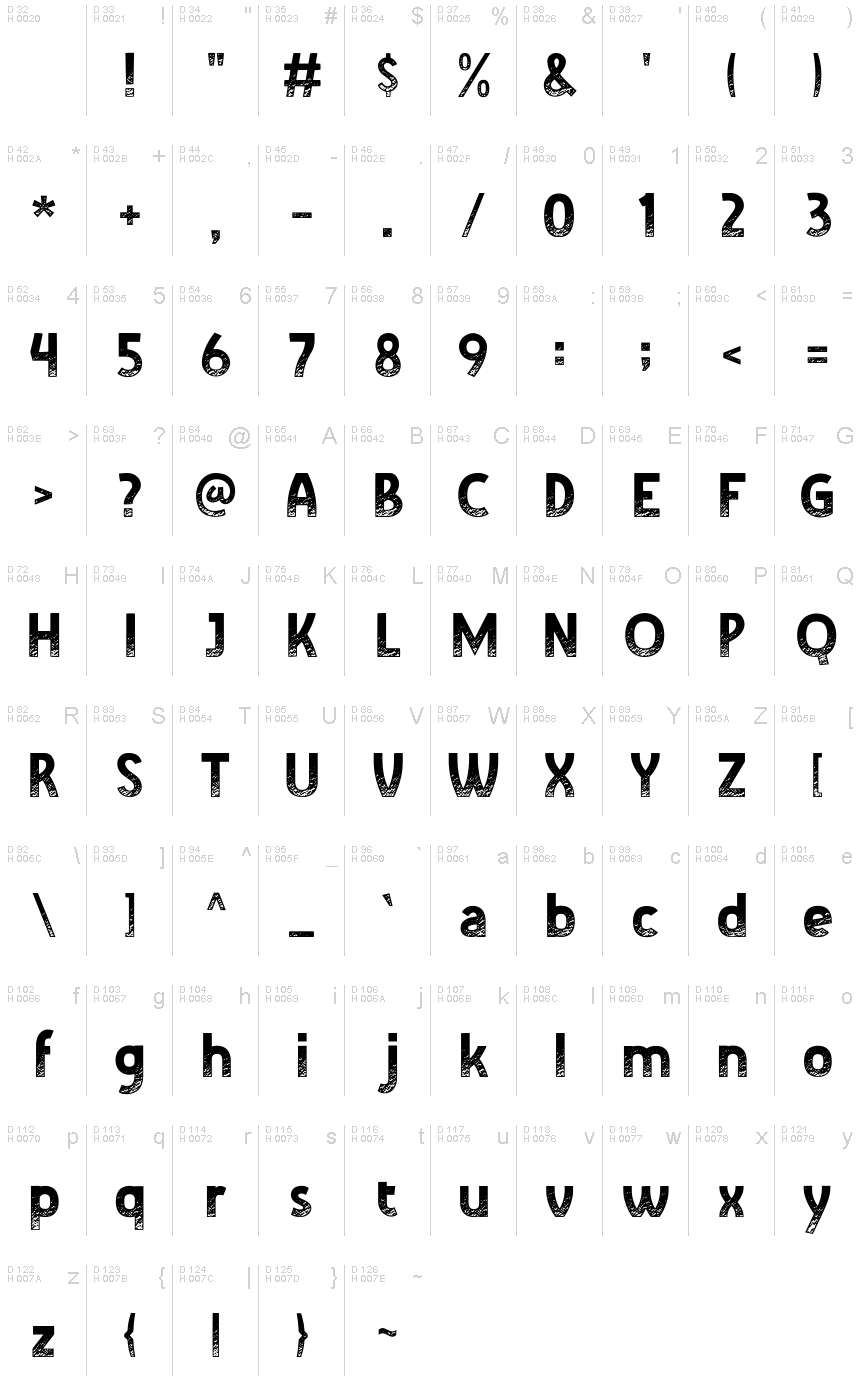
GEABOLG
Geabolg, a captivating display font crafted by Typeline Studio, commands attention with its rugged, eroded aesthetic. The bold letterforms exude a raw, industrial charm, evoking a sense of grit and resilience. This unique typeface seamlessly blends traditional and modern elements, creating a visually striking and memorable impression.
Geabolg's versatility makes it an excellent choice for a wide range of design applications, from eye-catching headlines and logos to impactful branding materials and editorial layouts. Its distinctive character lends itself well to projects that seek to convey a sense of strength, authenticity, and urban energy, such as in the design of album covers, event posters, or product packaging.